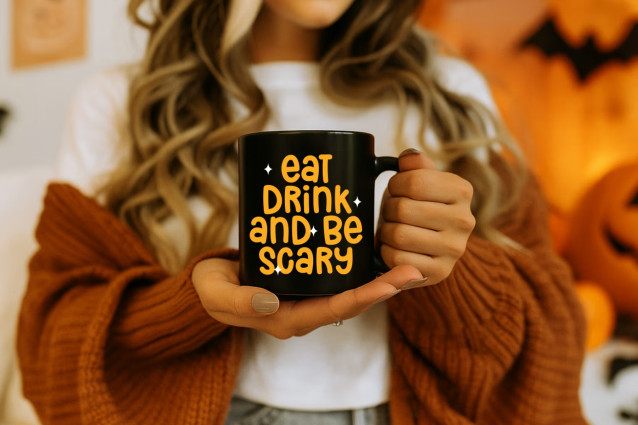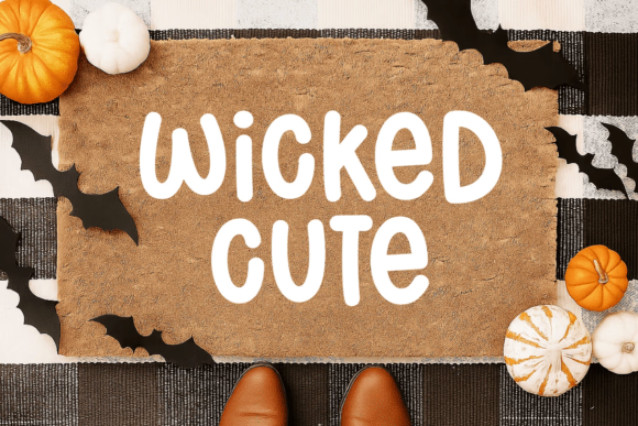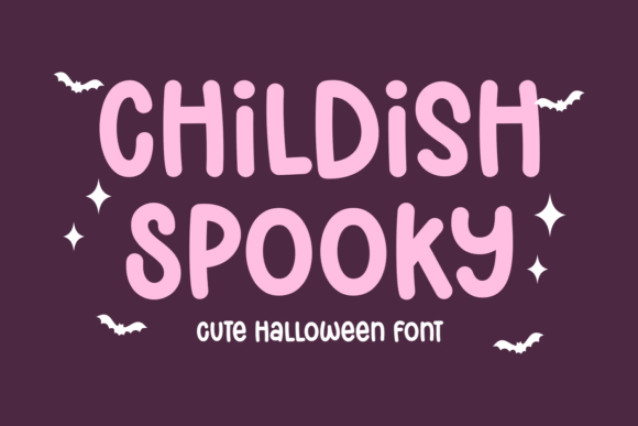
Introducing Childish Spooky – irresistibly adorable, this Halloween-inspired font will lend a delightful touch to your festive design projects. With its distinctly cheerful charisma, Childish Spooky effortlessly jazzes up your Halloween illustrations. It’s the perfect choice for personalizing T-shirts, mugs, stickers, and crafts, bringing a cute spin to the traditional spookiness of the season. Let Childish Spooky invigorate your design with its playful spirit and nostalgic Halloween vibe, ensuring your pieces stand out with novelty and charm.